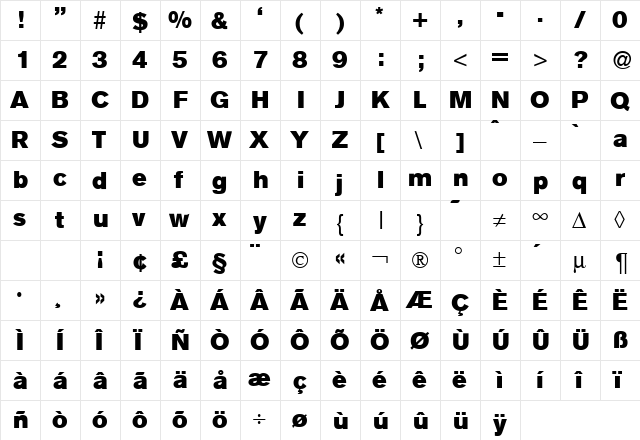
AkzentSuper Regular
Design Context for AkzentSuper Typeface
AkzentSuper offers clean, dependable letterforms without strong stylistic allegiance, making it a practical choice for designers who need flexibility.